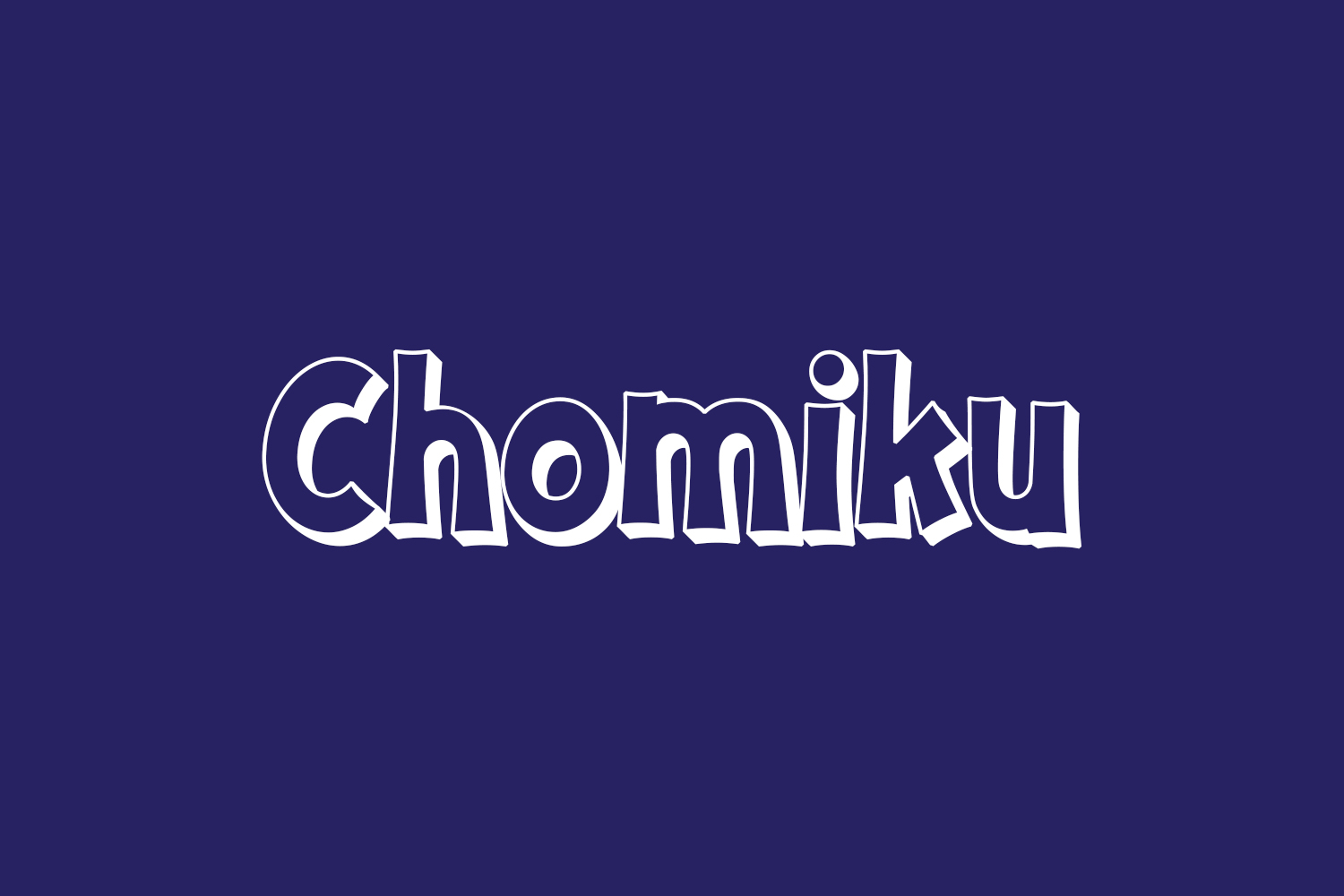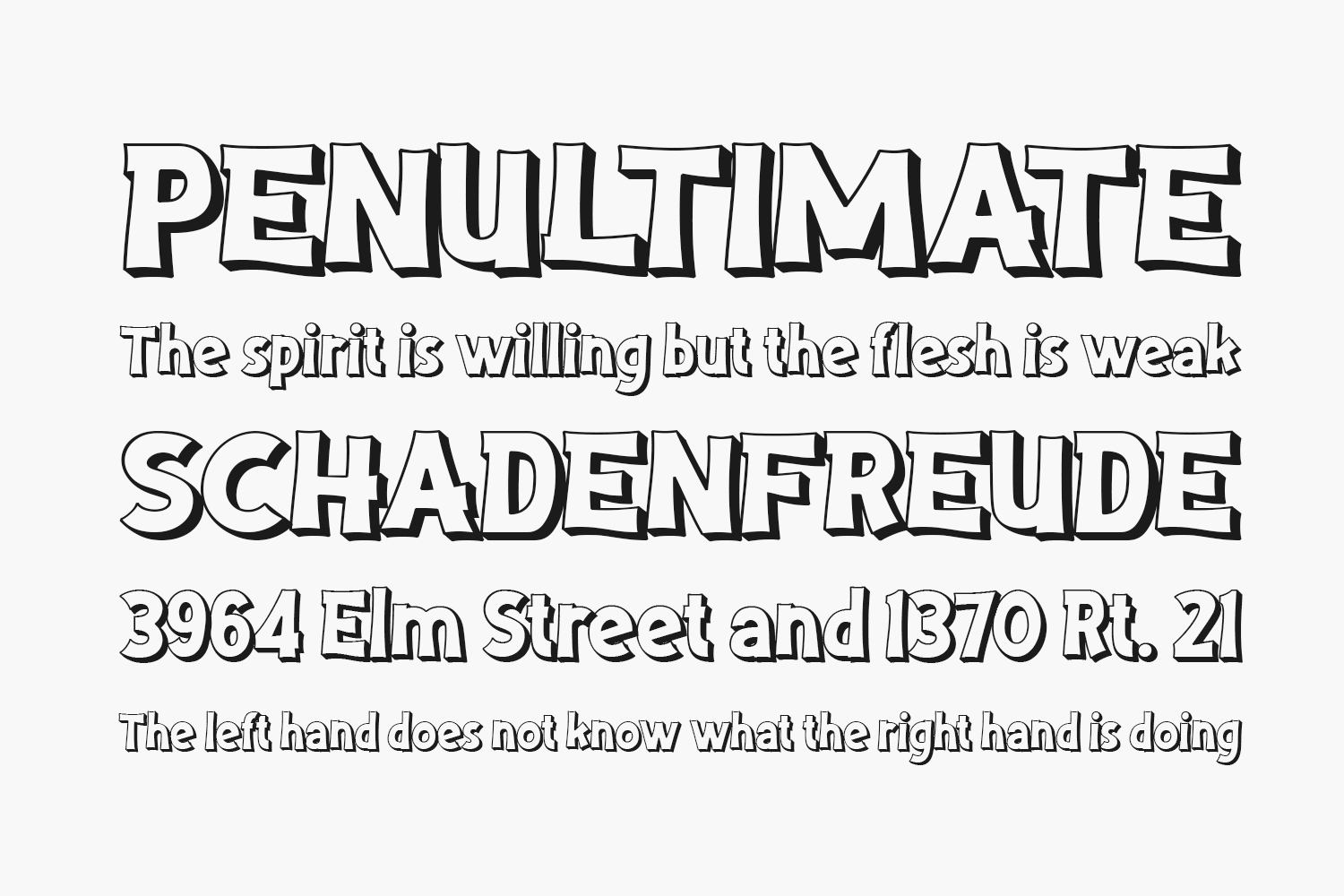
Introducing Chomiku Free Font – a vibrant and lively display font designed to infuse your projects with a playful and authentic flair. This funky and colorful typeface is an ideal selection for any creative endeavor seeking a fun and energetic vibe. Elevate your designs by incorporating the chunky lettered charm of Chomiku and experience how it breathes life into your visuals. Download the font for free if you need it for personal use or purchase the full version for commercial use.
Designed by Alit Design